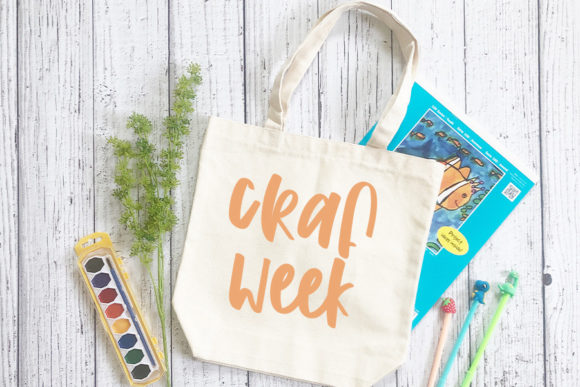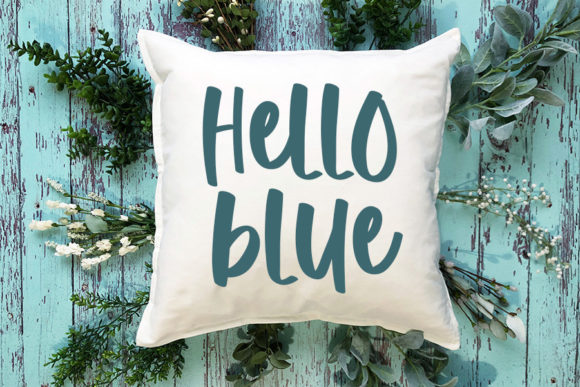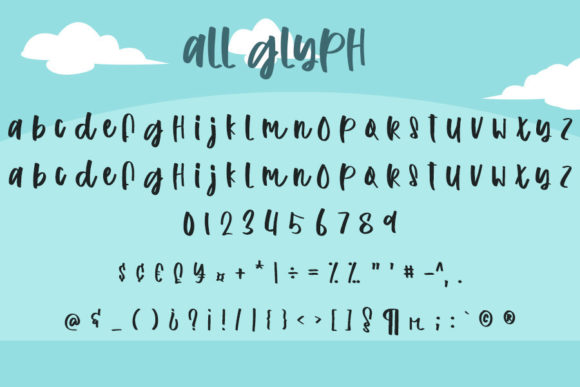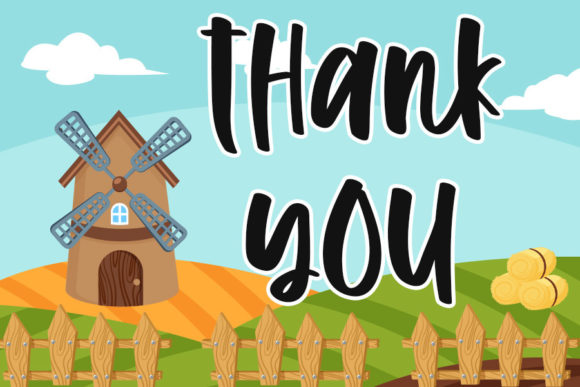
Introducing Farmhouse Font: The Perfect Handwritten Script for Your Creative Projects
Are you a designer, crafter, or DIY enthusiast looking for a font that can add a touch of personality to your creative projects? Look no further than Farmhouse Font, a well-balanced, cheery, and delicate handwritten script that’s perfect for a wide range of applications. In this article, we’ll take a closer look at the features and benefits of Farmhouse Font, and explore how it can help you turn your creative ideas into stunning works of art.
Farmhouse Font is a beautiful, handwritten script that’s designed to bring a sense of warmth and personality to your creative projects. With its delicate lines, cheery tone, and well-balanced letterforms, this font is perfect for anyone looking to add a touch of elegance and sophistication to their designs. Whether you’re creating social media graphics, crafting DIY projects, or designing marketing materials, Farmhouse Font is the perfect choice.
So what makes Farmhouse Font so special? Here are just a few of its key features:
- Well-balanced letterforms: Each letterform in Farmhouse Font is carefully crafted to ensure that it’s perfectly balanced and proportioned, creating a beautiful and harmonious script.
- Cheery tone: Farmhouse Font has a naturally cheery tone that’s perfect for creating designs that are friendly, approachable, and inviting.
- Delicate lines: The delicate lines and strokes in Farmhouse Font give it a light, airy feel that’s perfect for creating elegant and sophisticated designs.
- Handwritten script: Farmhouse Font is a true handwritten script, with each letterform carefully crafted to mimic the look and feel of handwriting.
Uses for Farmhouse Font
So what can you use Farmhouse Font for? The possibilities are endless! Here are just a few ideas to get you started:
- Instagram graphics: Use Farmhouse Font to create stunning social media graphics that are sure to grab attention and inspire engagement.
- DIY projects: Add a touch of personality to your DIY projects, such as handmade cards, gift tags, and other crafts.
- Marketing materials: Use Farmhouse Font to create marketing materials, such as brochures, flyers, and business cards, that are friendly, approachable, and memorable.
- Stationery and invitations: Create beautiful stationery and invitations that are perfect for weddings, parties, and other special occasions.
Why Choose Farmhouse Font?
So why should you choose Farmhouse Font for your creative projects? Here are just a few reasons:
- Unique and distinctive: Farmhouse Font is a unique and distinctive script that’s sure to stand out from the crowd.
- Elegant and sophisticated: With its delicate lines and cheery tone, Farmhouse Font is perfect for creating designs that are elegant and sophisticated.
- Easy to read: Despite its delicate lines, Farmhouse Font is easy to read and understand, making it perfect for body text and other applications.
- Versatile: Farmhouse Font is a versatile script that can be used for a wide range of applications, from social media graphics to marketing materials.
In conclusion, Farmhouse Font is a beautiful, handwritten script that’s perfect for designers, crafters, and DIY enthusiasts looking to add a touch of personality to their creative projects. With its well-balanced letterforms, cheery tone, and delicate lines, this font is sure to turn any creative idea into a true piece of art. Whether you’re creating social media graphics, crafting DIY projects, or designing marketing materials, Farmhouse Font is the perfect choice. So why wait? Download Farmhouse Font today and start creating stunning designs that are sure to inspire and delight!